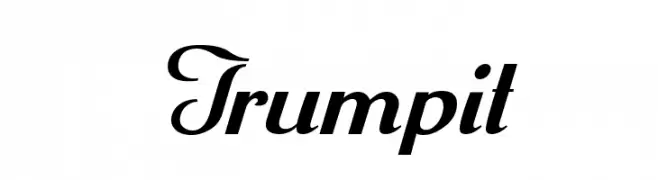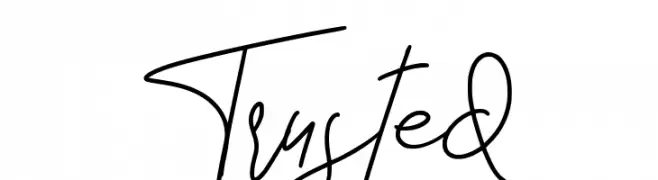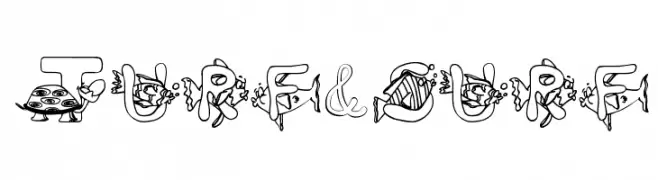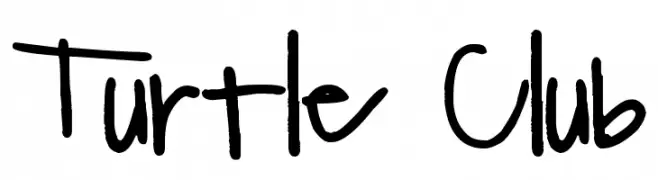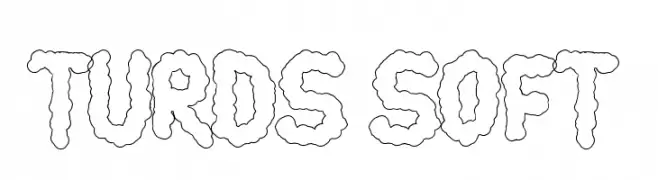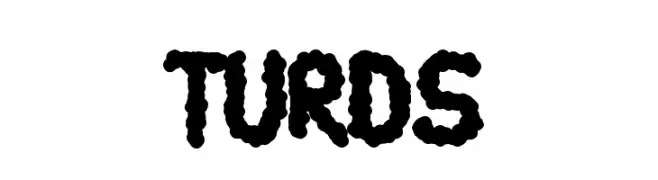
• Trumpit
An elegant script font with flowing, cursive letterforms and sophisticated details.
• Trusted
A dynamic, expressive handwritten font with fluid strokes and artistic flair.
• TSalvacion
• turds
A playful, bold, and bubbly font with a whimsical, cartoonish style.
• turds soft
A playful, cloud-like font with bold, rounded characters and a whimsical style.
• Turf&surf
A whimsical, cartoonish font with unique illustrations in each character.
• Turtle Club
A playful, casual handwritten font with bold strokes and a whimsical touch.
• Tweaked
• TwentySingles
A bold, brush-style font with an energetic and artistic flair.
• TwentySomething
A bold, textured font with a handcrafted, artistic feel.